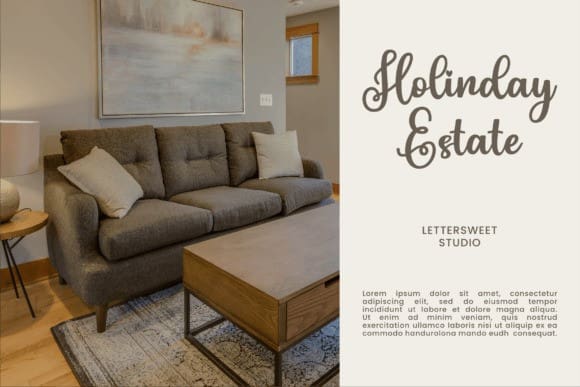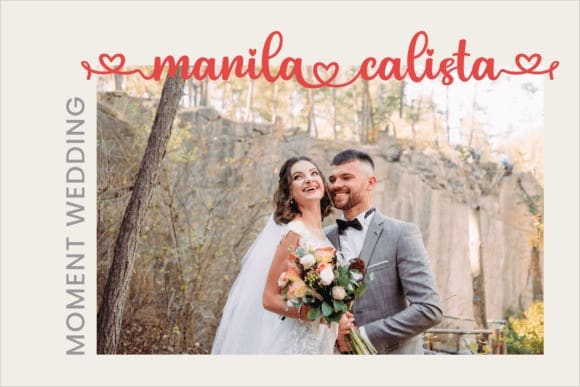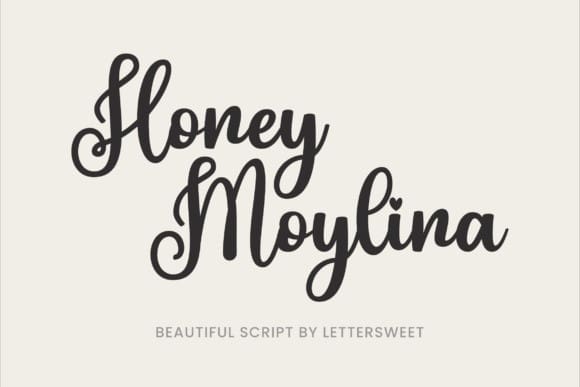
Honey Moylina Font
Honey Moylina Font is a beautiful and romantic script font. It looks stunning on wedding invitations, thank you cards, quotes, greeting cards, logos, business cards, and every other design which needs a lovely handwritten touch.